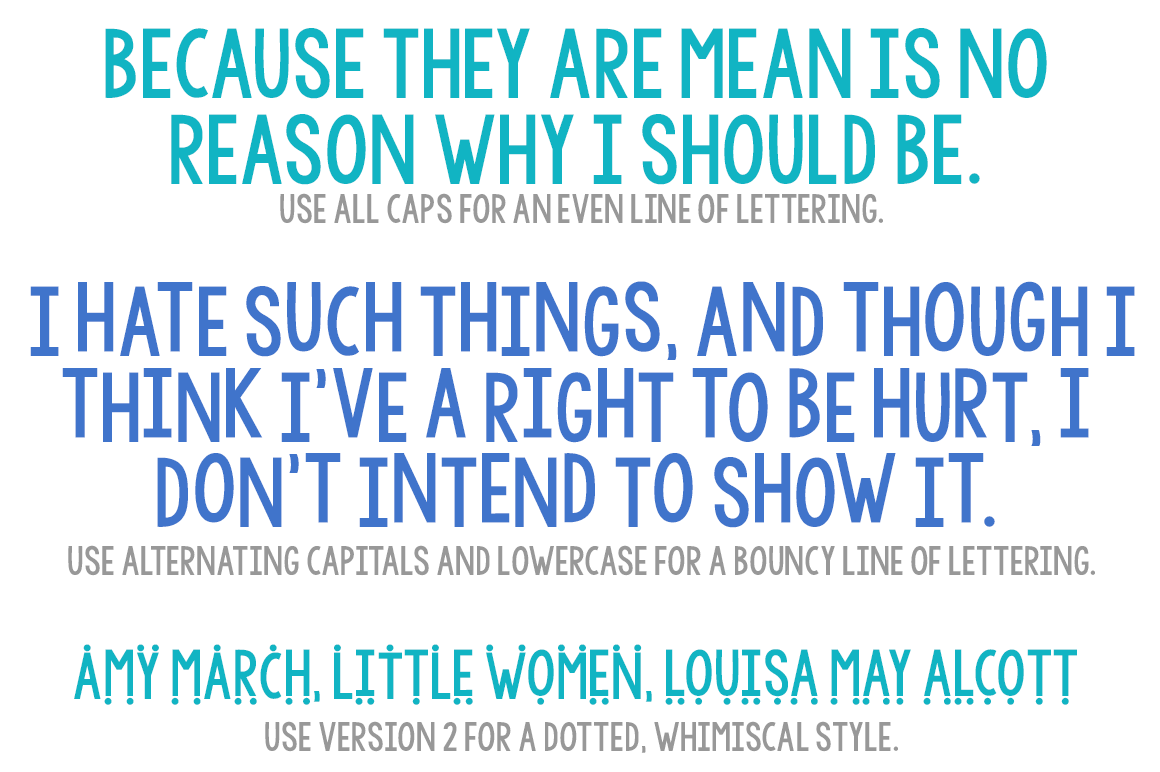
KG Why You Gotta Be So Mean Font
In 3 styles-- use all caps for even lettering at one height. Alternate caps and lowercase like tHiS and get bouncy lettering. Or use version 2 for a dotted style.
Includes enough glyphs to cover most European languages.